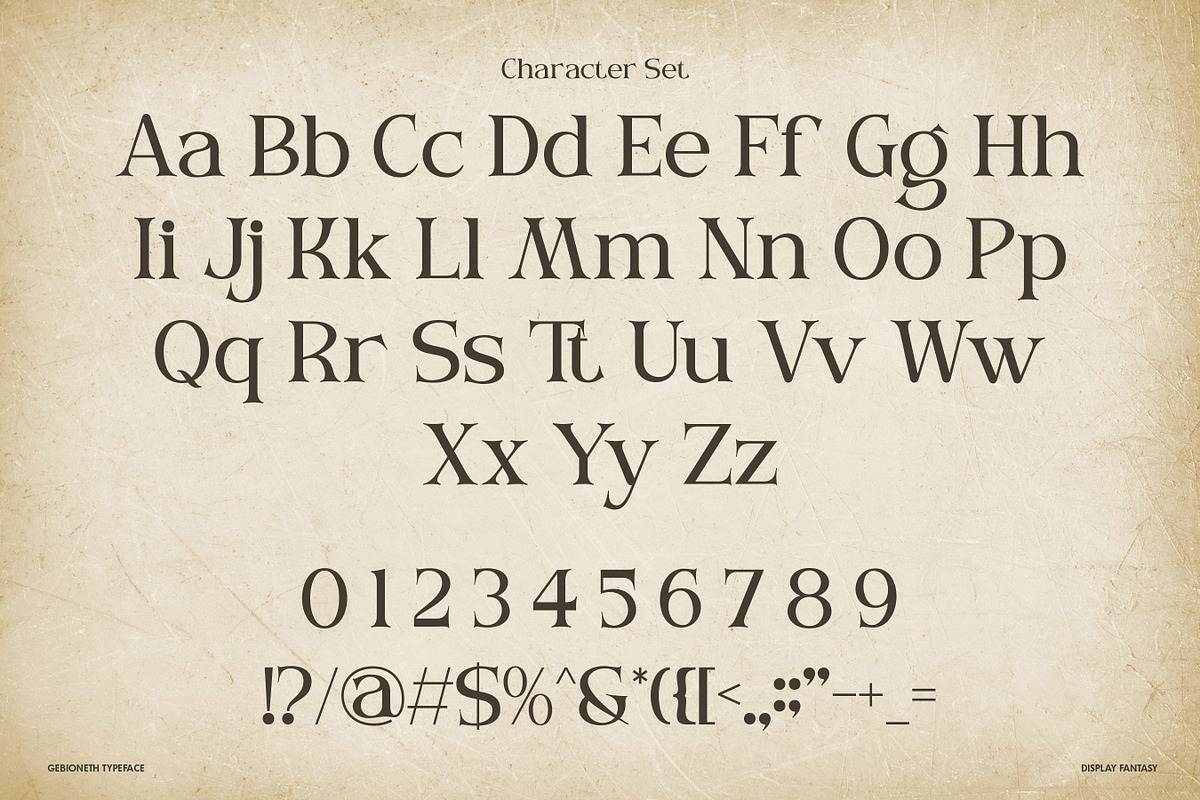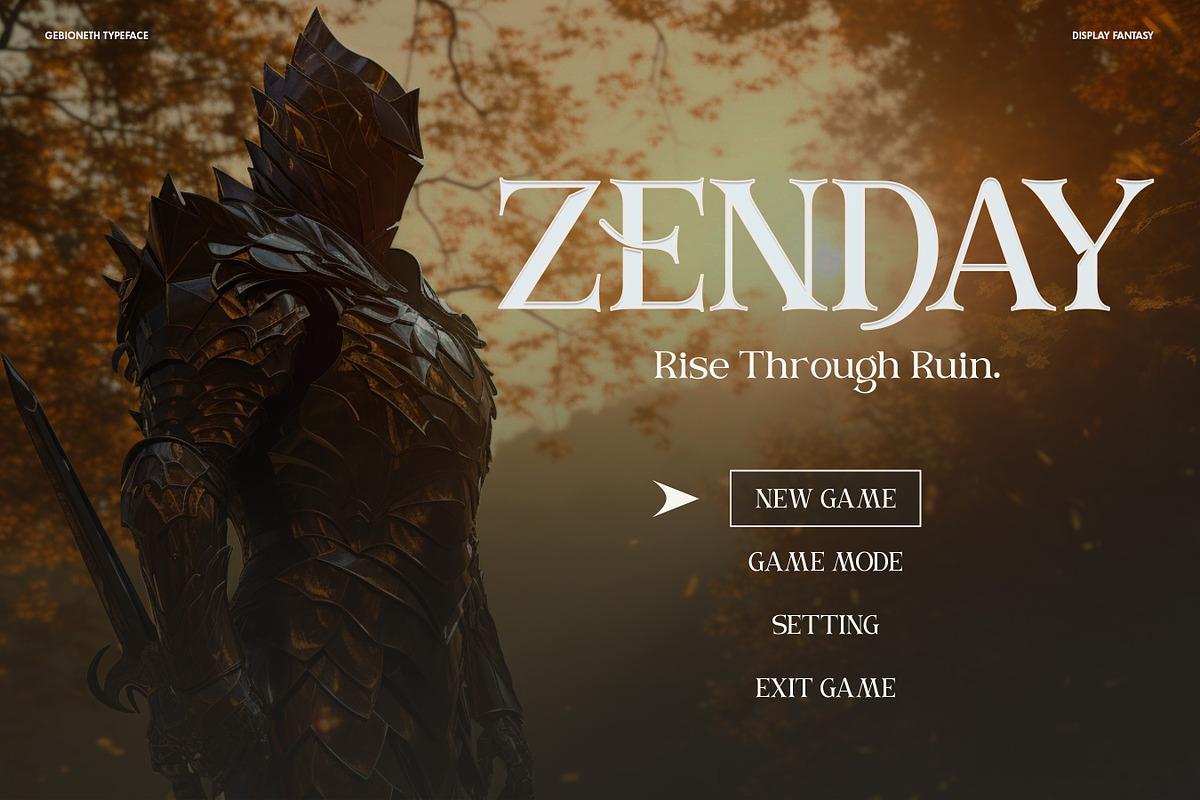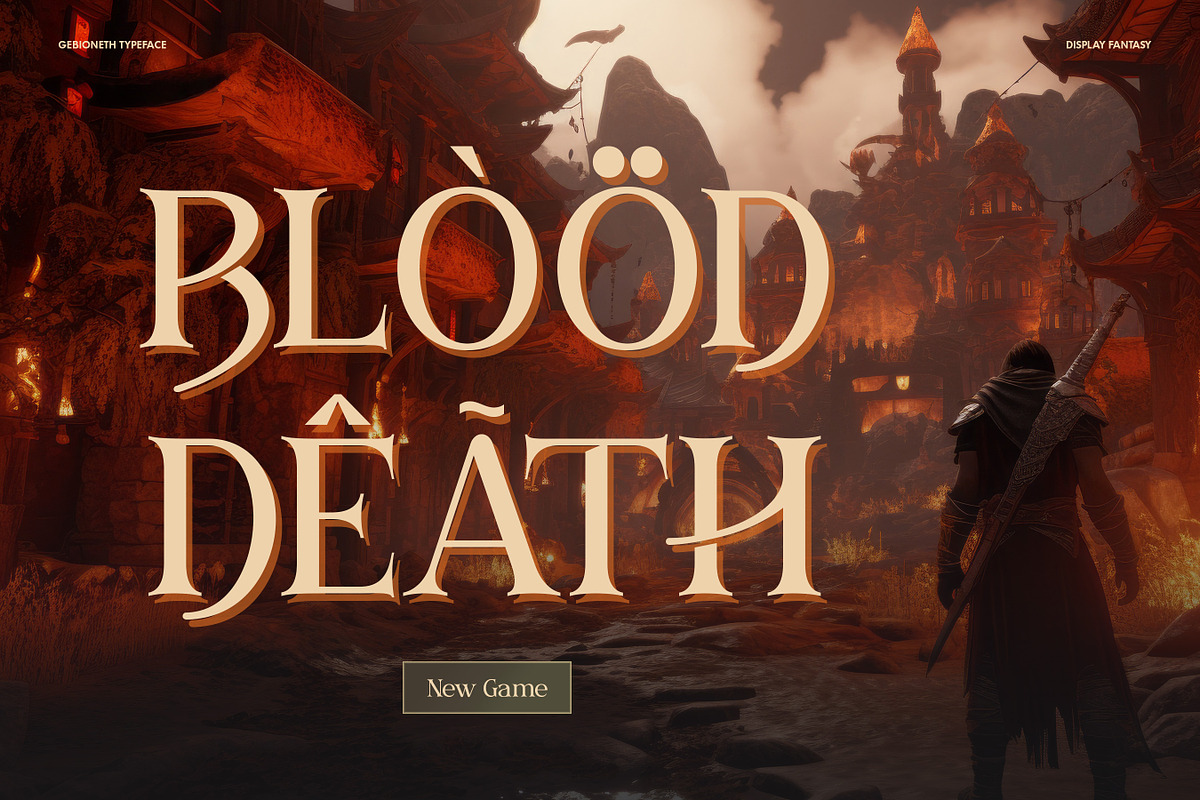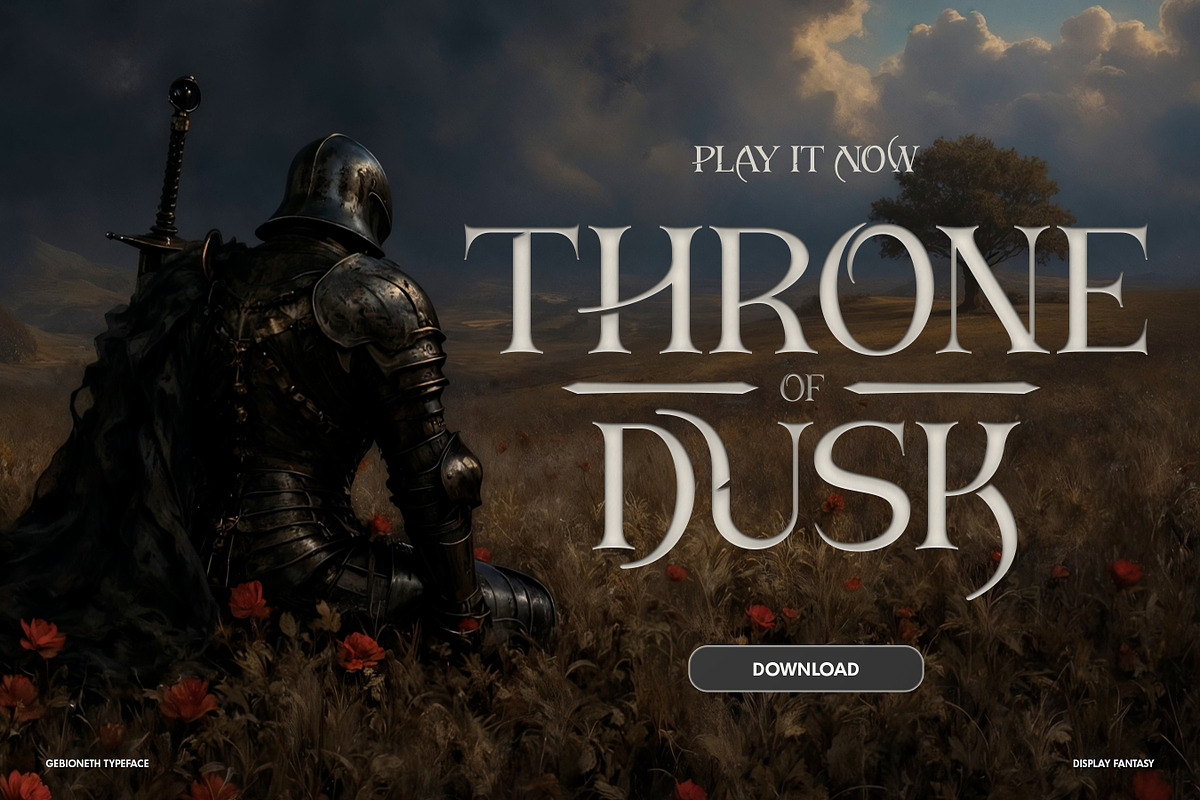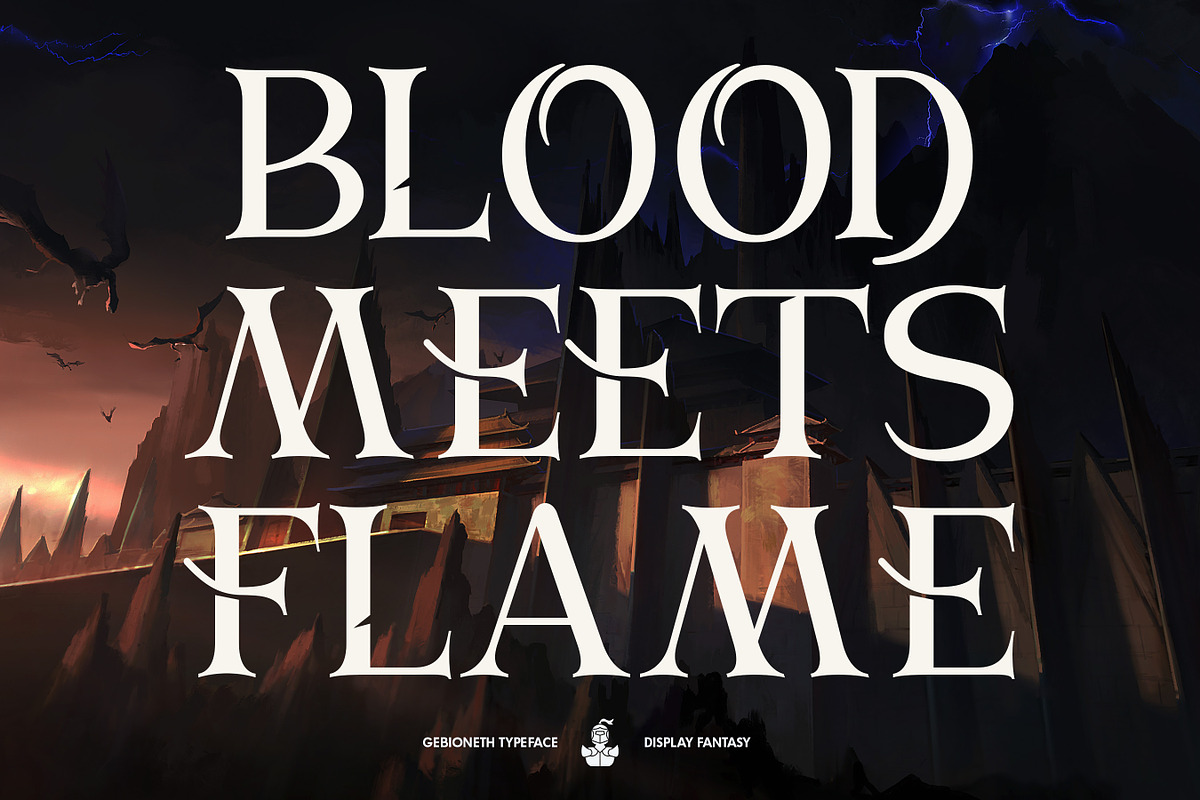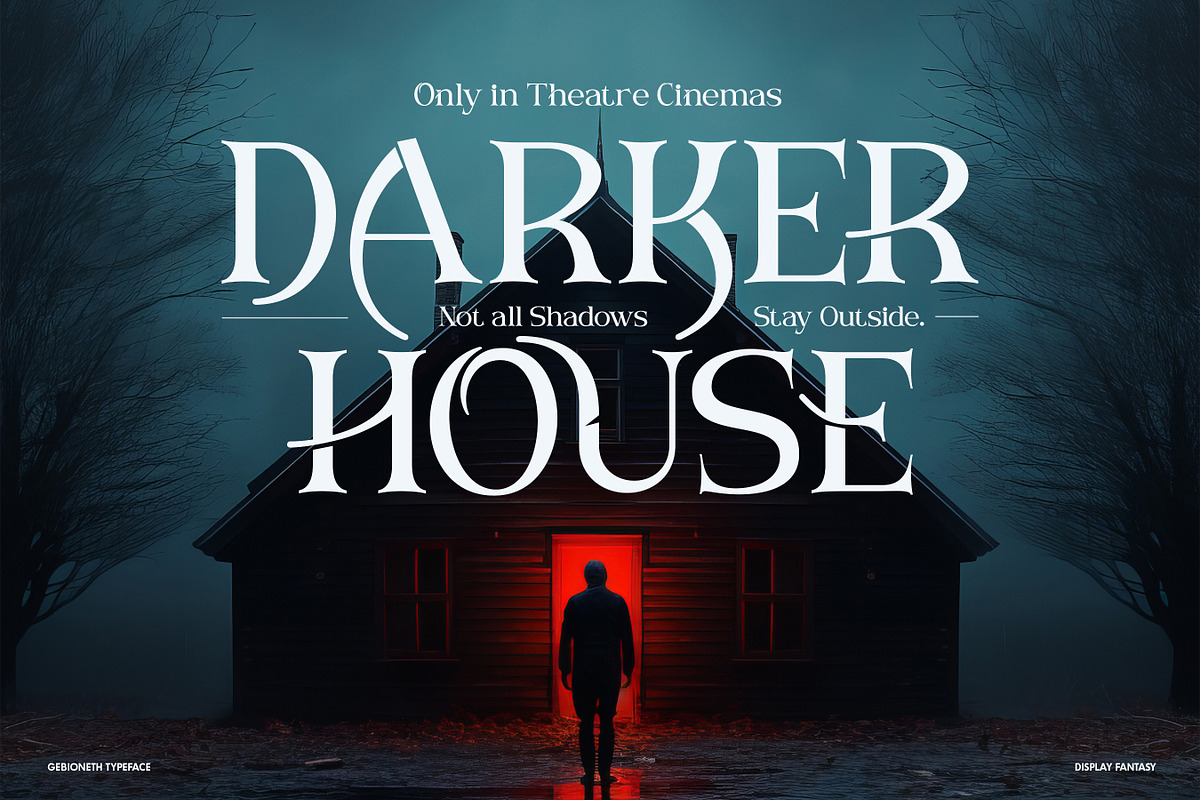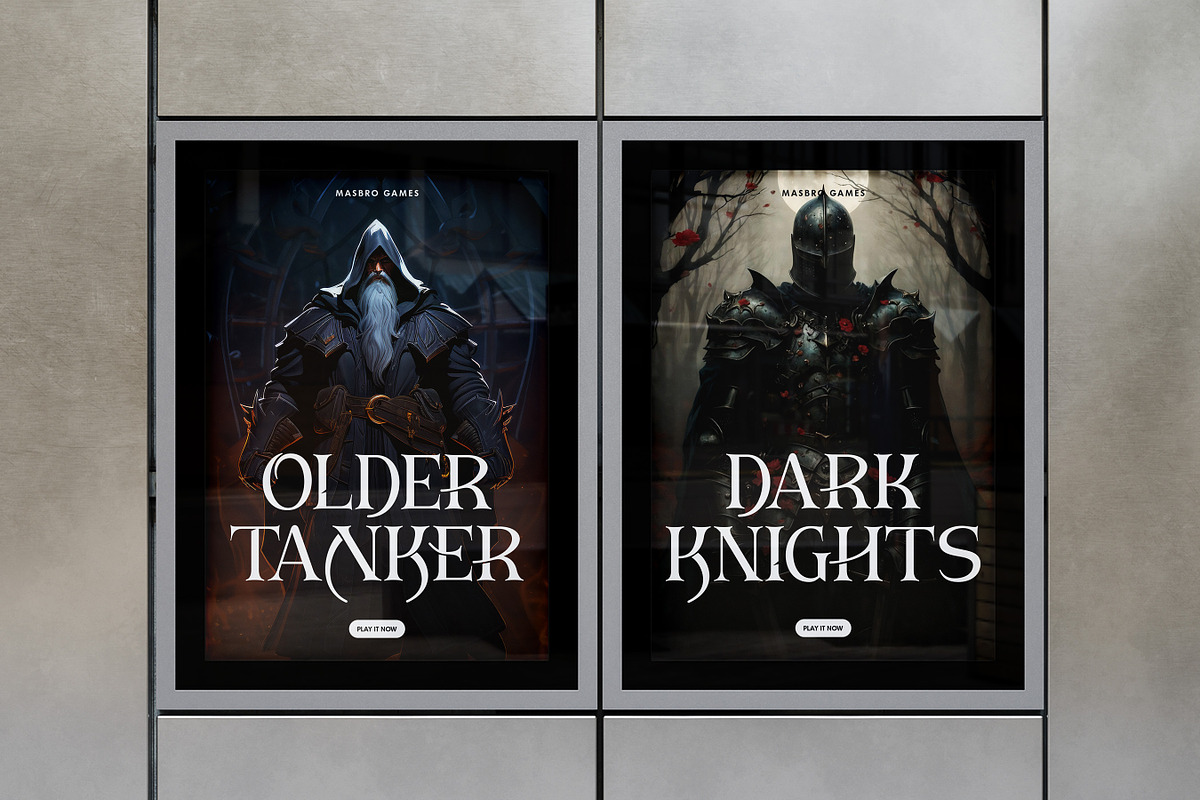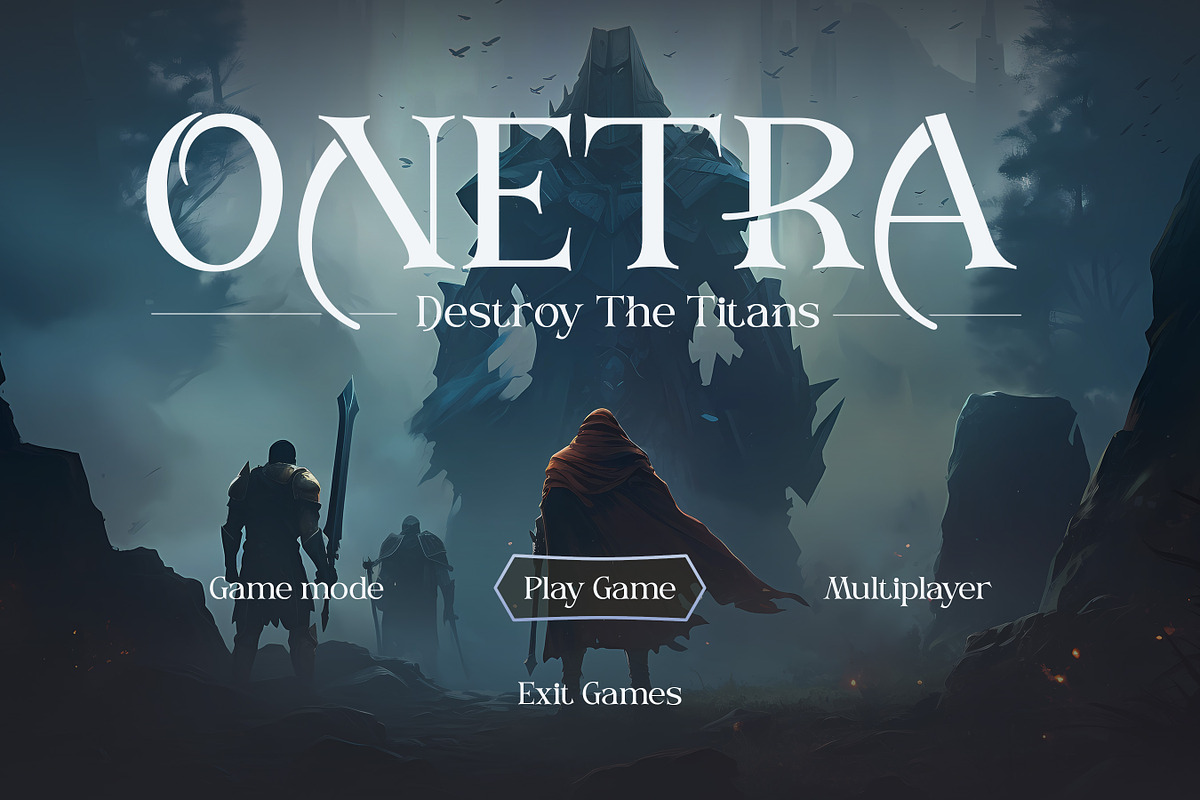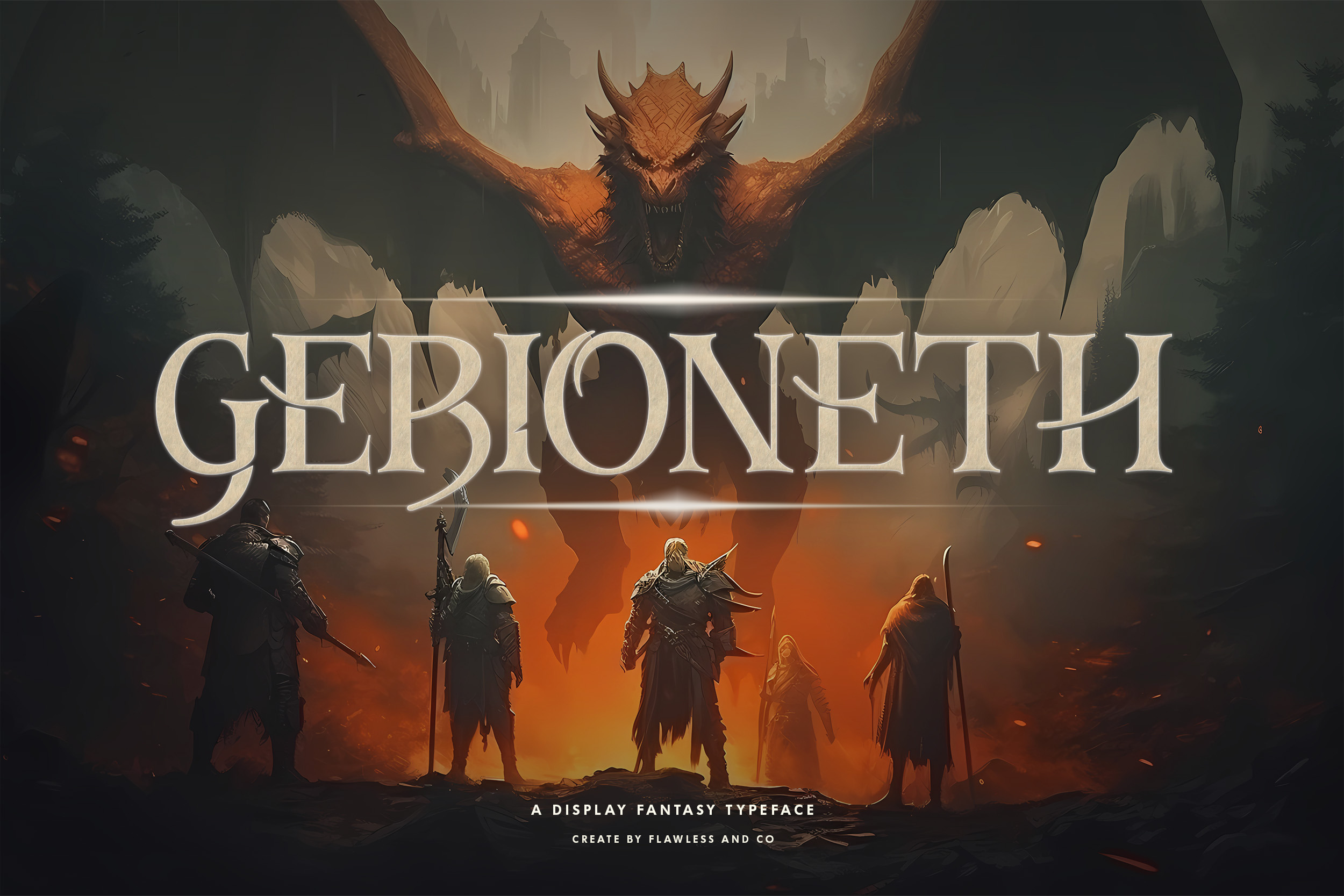
Gebioneth - Display Fantasy Font
Gebioneth – A Display Fantasy Typeface
Gebioneth is a bold and powerful fantasy display typeface, crafted to bring an epic touch to your creative projects. With its sharp details, mystical curves, and dramatic character shapes, Gebioneth captures the essence of medieval fantasy worlds filled with warriors, dragons, and legends. Perfect for game titles, movie posters, book covers, branding, or any project that demands a heroic and legendary feel, Gebioneth makes your words look timeless and unforgettable. Its unique design blends elegance with strength, making it a must-have font for fantasy lovers, creators, and designers who want to stand out.
Who Should Use Gebioneth?
Gebioneth is designed for creatives, storytellers, and designers who want to bring a sense of fantasy and epic adventure into their work. This font is perfect for:
- Game developers looking for strong and mystical title typography
- Fantasy book authors and publishers wanting striking, legendary covers
- Movie poster designers who need dramatic, cinematic lettering
- Branding projects that seek a bold, medieval-inspired identity
- Creatives working on merchandise, apparel, or collectibles with fantasy theme
A Must-Have Font for Brand, Logo, Gaming, and Movie Creators & Designers
Gebioneth is a must-have typeface for designers, brand builders, and creative professionals who want to capture the essence of fantasy and cinematic impact. Whether you are crafting an unforgettable game title, designing an epic movie poster, or building a bold brand identity, this font delivers the perfect blend of power, style, and imagination.
Why Choose Gebioneth for Brand, Logo, and Creative Projects?
Gebioneth is more than just a font—it’s a statement. Designed with bold strokes and fantasy-inspired details, it brings a sense of strength, adventure, and cinematic drama to any project. Perfect for brands that want to stand out, logos that demand attention, and creative works that need an epic touch, Gebioneth ensures your designs leave a lasting impression.
Suitable For:
- Gaming logos and esports branding
- Movie posters and fantasy-themed titles
- Book covers, especially fantasy or adventure genres
- Brand identities that need bold and unique typography
- Creative agencies working on entertainment or gaming projects
- Merchandise, apparel, and promotional materials with an epic style